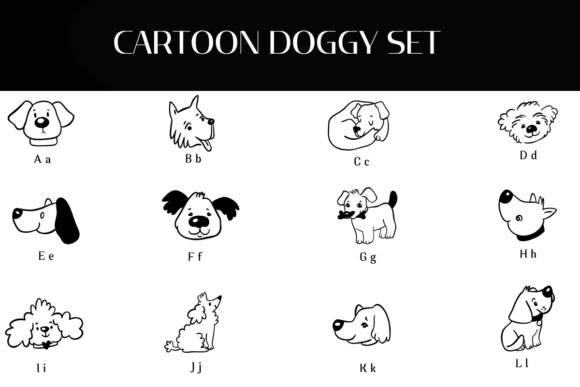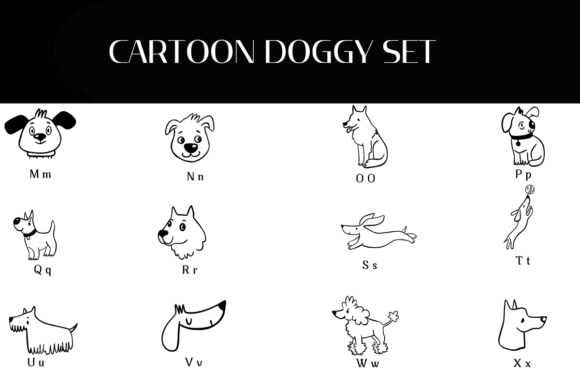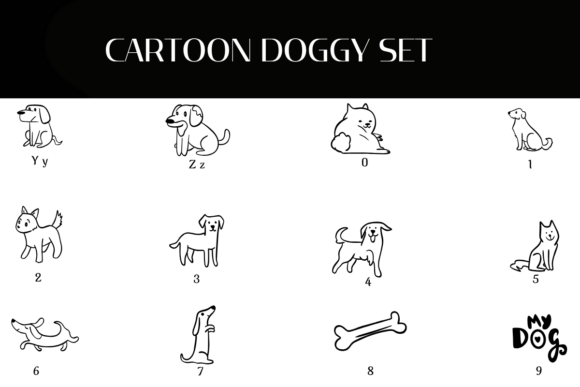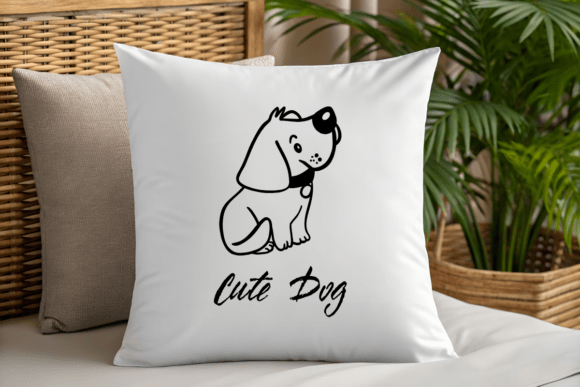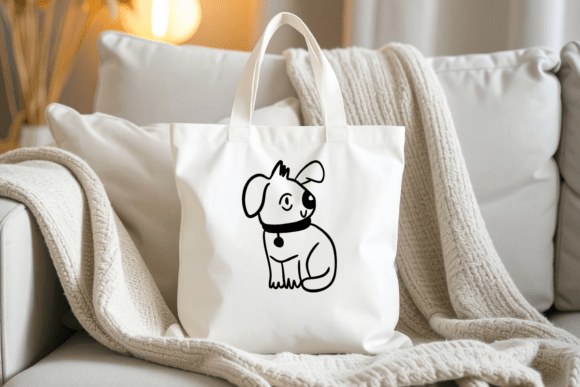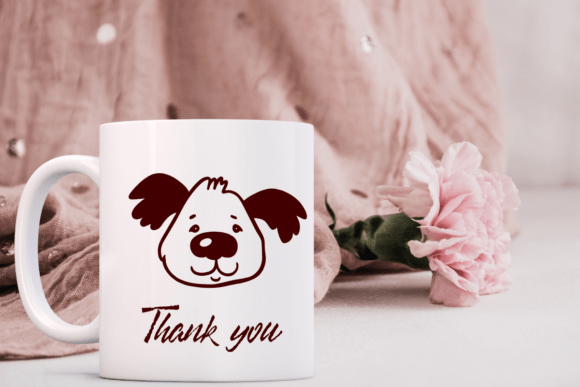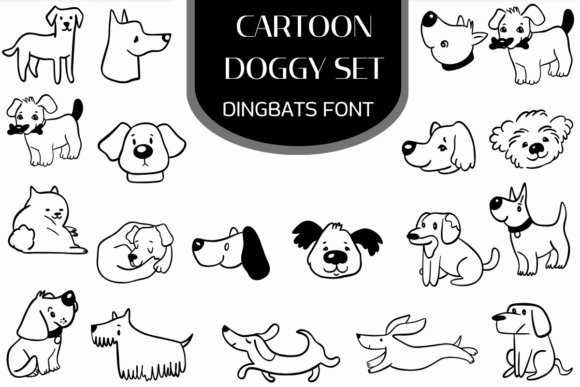
Unleash Joy and Whimsy with Cartoon Doggy Set Font π
Have you ever been stuck on a design project, searching for that perfect font to bring a smile to your client’s face? I recall a recent experience where a client requested a playful, dog-themed design for a children’s apparel brand. The catch? It had to be cheerful, fun, and, most importantly, adorable. That’s when I discovered the Cartoon Doggy Set font β a delightful dingbat font that instantly elevated my design game! π
What Makes Cartoon Doggy Set So Special? πΎ
The Cartoon Doggy Set is more than just a font β it’s a collection of hand-drawn vector illustrations of happy, playful, and adorable dogs. With its clean, friendly line-art style, this font is perfect for creating digital stickers, fun children’s apparel, dog park branding, vet clinic signage, or easy-to-cut vinyl decals and craft projects.
My Honest Review: The Good and the Great β¨
Here’s what I love about Cartoon Doggy Set:
- β¨ Extensive collection of unique dog illustrations, from scruffy terriers to sleepy lapdogs
- β Clean, bold outline that’s perfect for various design applications
- π¨ Easy to use and customize, even for beginners
- π€ Perfect for creating a wide range of designs, from digital stickers to vinyl decals
And, like any font, it’s not without its quirks:
- β οΈ Limited to dog-themed illustrations, which might not be suitable for all design projects
- π€ Some users might find the font too playful or childish for certain applications
The Designer Inspiration Behind Cartoon Doggy Set π
The creator of Cartoon Doggy Set is a dog lover and designer who wanted to bring a smile to people’s faces through their designs. With a passion for illustration and typography, they crafted a font that’s both fun and functional. πΎβ€οΈ
| Is Cartoon Doggy Set suitable for print designs? | Absolutely! Cartoon Doggy Set is designed to be versatile and works well for both digital and print designs, including business cards, brochures, and more. |
With Cartoon Doggy Set, you can bring instant joy and cartoon charm to your designs. Whether you’re a designer, crafter, or creative hobbyist, this delightful dingbat font is sure to become your new best friend! πΎπ